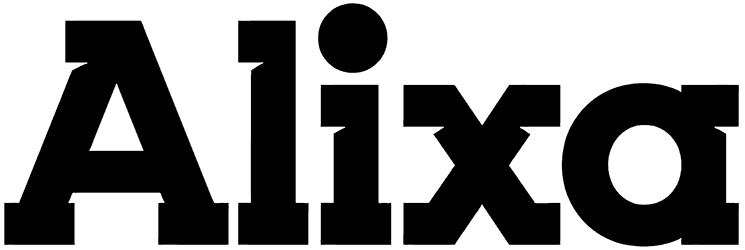
Alixa Font
See how well your words can set a fun mood for your lettering despite the serifs when you let Alixa style your text. And the result? It’ll be a perfect match for your tropical posters, wooden signs, agriculture games, and book club website banners, all thanks to this slab serif font.
Long story short, Alixa can be the college font you’re looking for, but with more playfulness to offer. The separate structure of its sharp serifs makes sure of that.